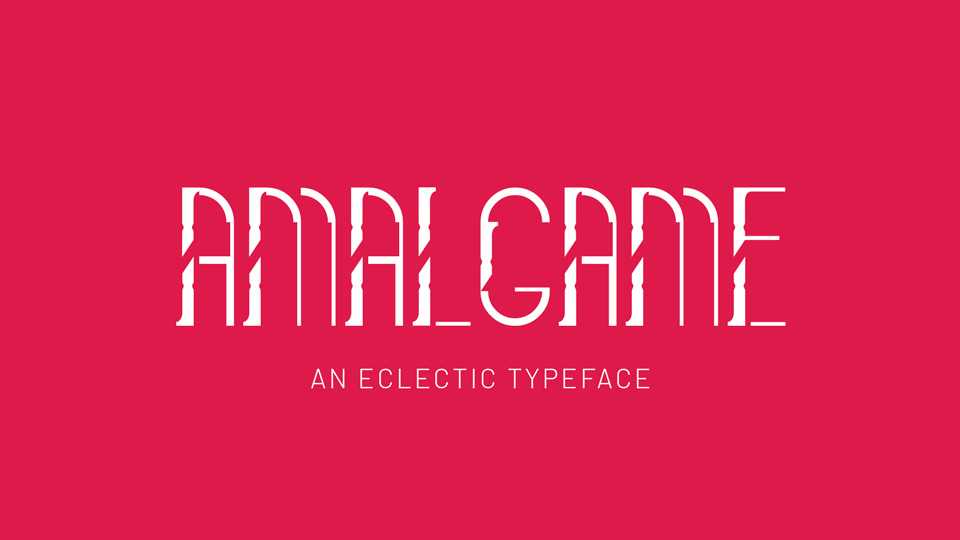
Download Amalgame font, an eclectic modular display typeface composed with only 11 different shapes based on the wooden modules.
Designer: Félicie Bouckaert